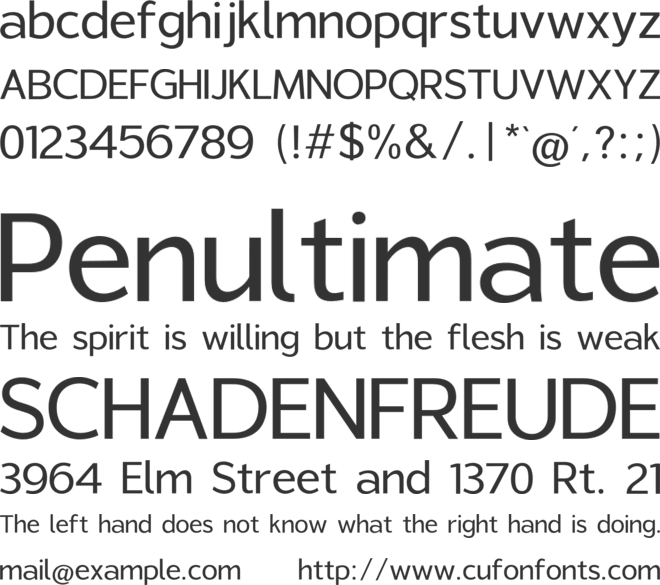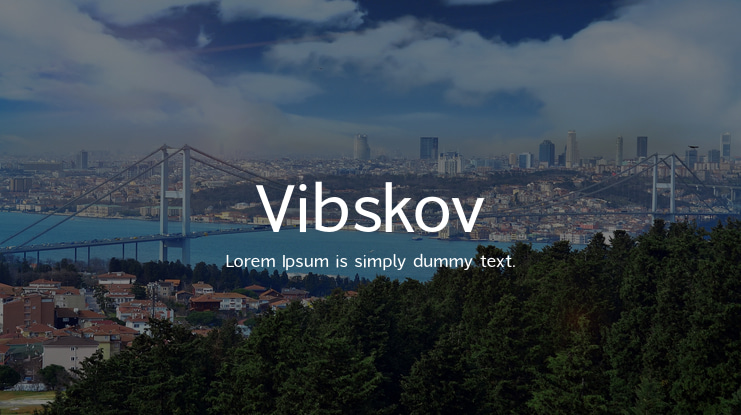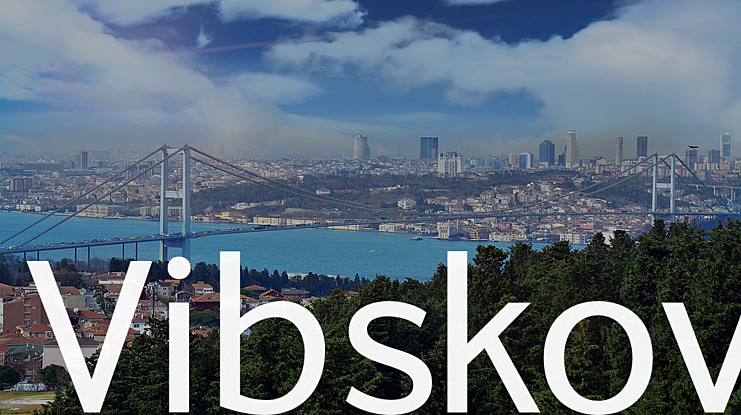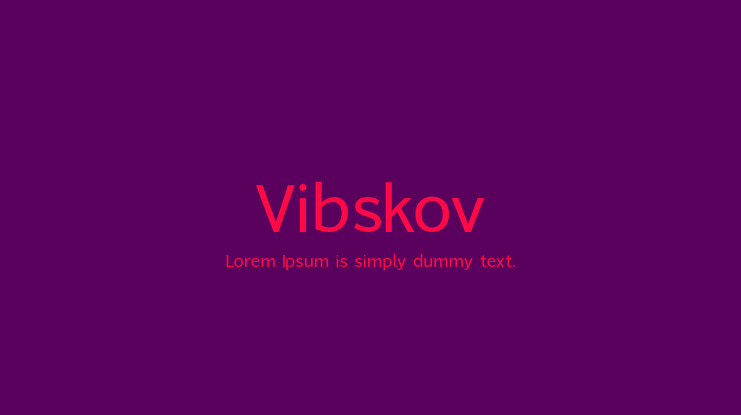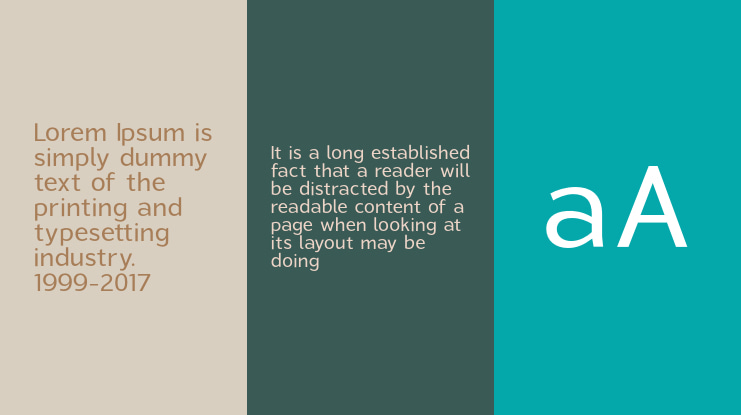
Vibskov Font Family
This is a humanist-inspired sans serif typeface designed for legibility at a range of sizes โ€“ from text to display. Vibskov includes enhanced characters and more comprehensive language support, allowing you to use this font family for a wider range of applications, including body text and displays.